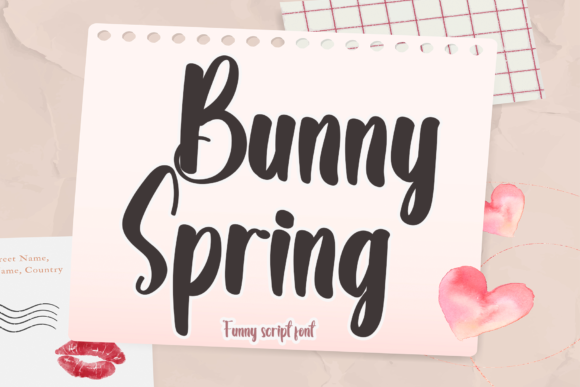
Introducing the enchanting Bunny Spring Font, a captivating and alluring script that will ignite your creative spirit and leave an unforgettable mark on your designs.
Step into a world of delicate curves, graceful swashes, and flowing lines that evoke the charm of handwritten notes and the elegance of signature scripts. Bunny Spring is a font that dances like a ballerina, its every stroke a symphony of beauty and grace.
Crafted with meticulous care by the master designer Creatype, Bunny Spring whispers romance and joy into each of your creations. Its sweet and cursive nature adds an air of femininity and sophistication, making it perfect for a myriad of projects that demand a touch of elegance and charm.
Whether you're designing invitations for a special occasion, creating eye-catching social media graphics, or crafting logos that exude timeless appeal, Bunny Spring is your steadfast companion. Its versatility knows no bounds, adapting seamlessly to any design aesthetic and elevating your projects to new heights of creativity.
Indulge in the artistry of Bunny Spring today and unlock a world of enchanting possibilities. Let its exquisite strokes captivate your audience, leaving them spellbound by the magic of your designs.